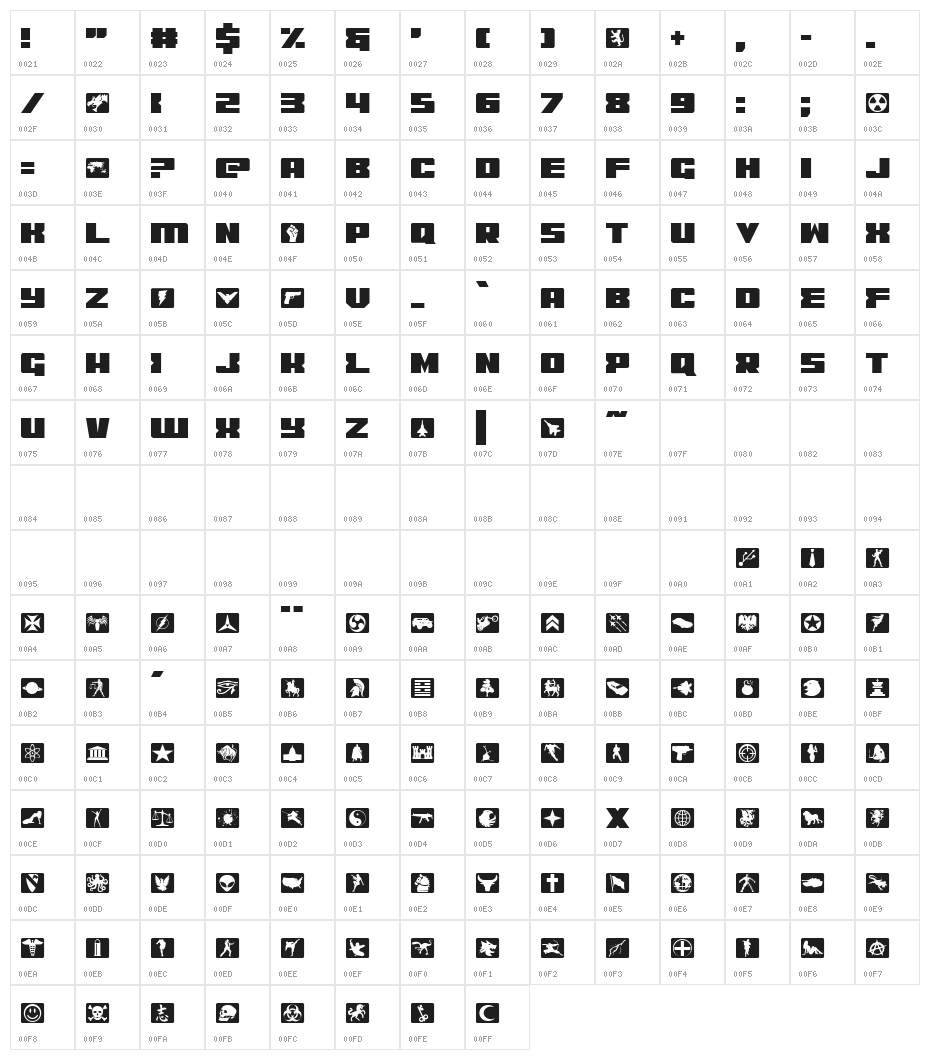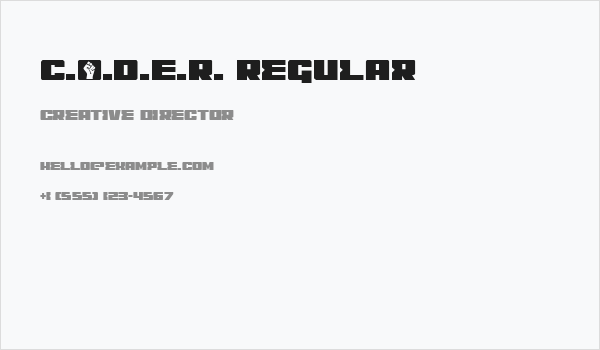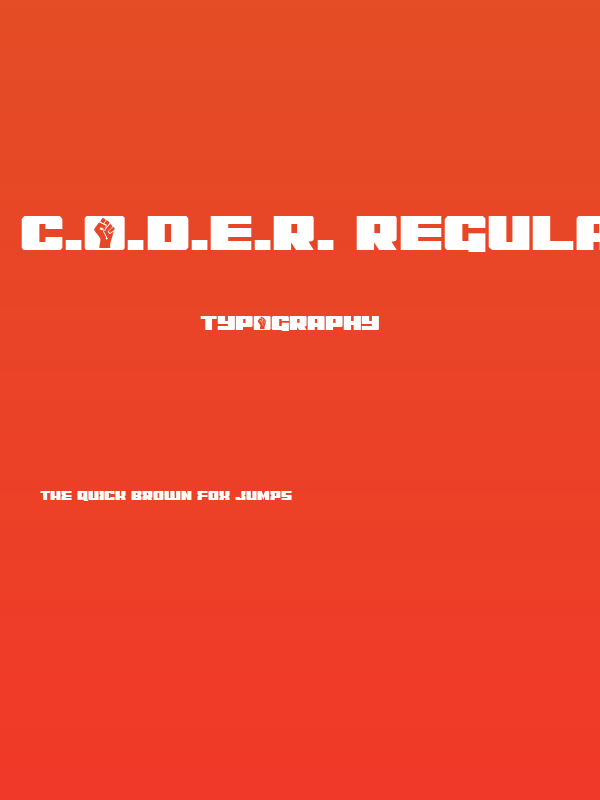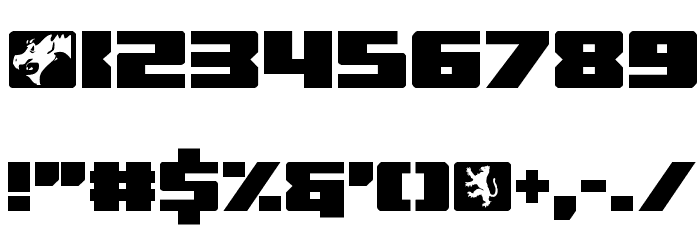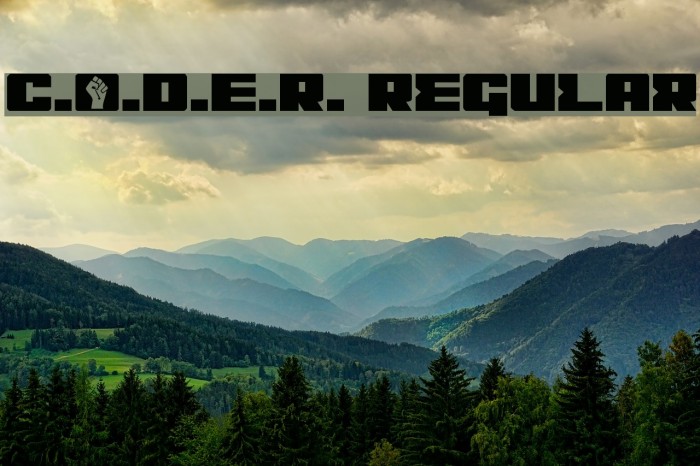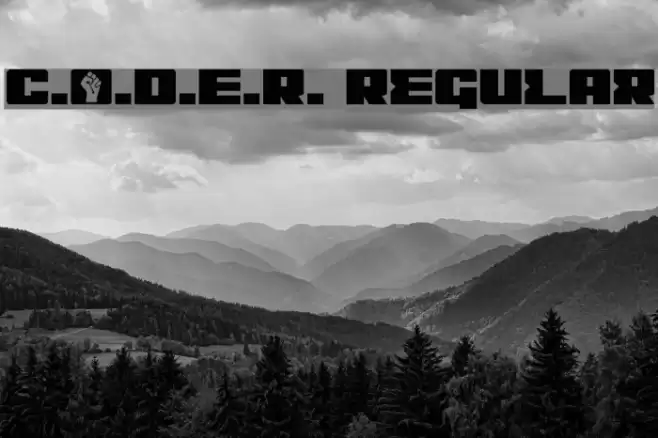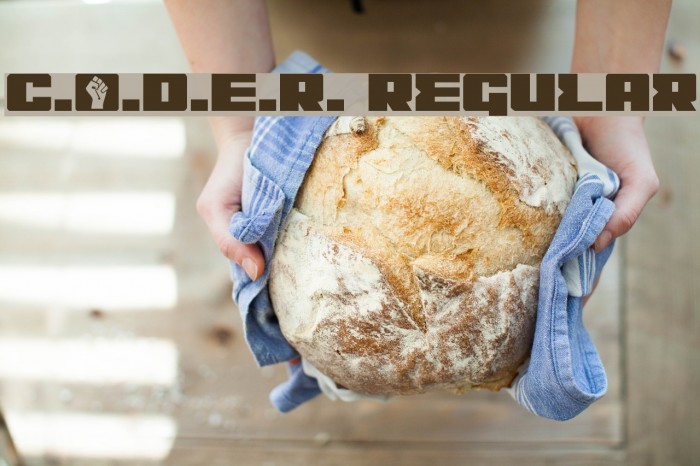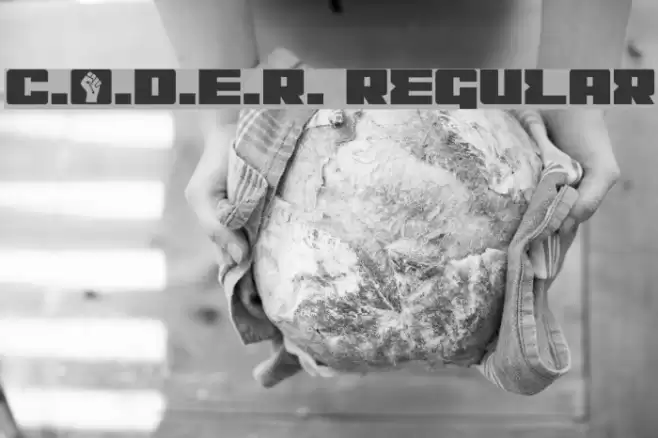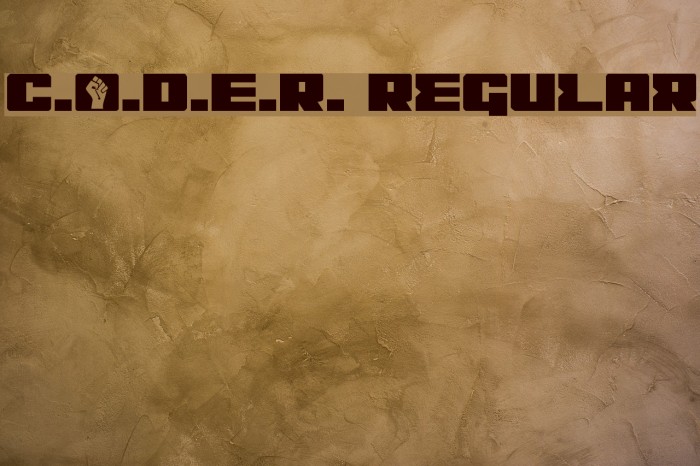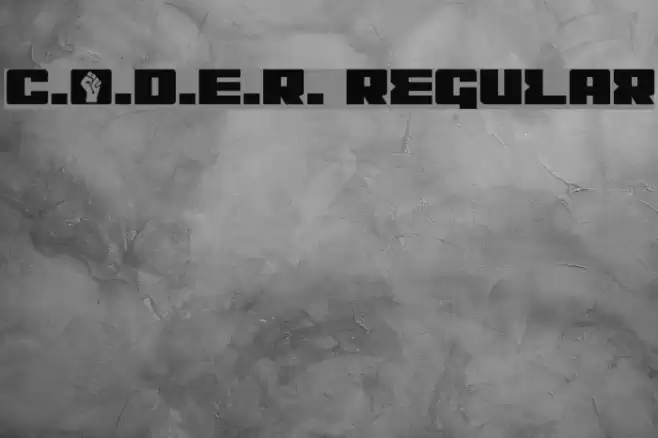
C.O.D.E.R. Regular Font
C.O.D.E.R. Regular Description
This font features a bold, geometric design with a strong, blocky appearance. The characters are uniformly thick, giving it a powerful and commanding presence. The uppercase letters are particularly striking, with sharp angles and a consistent height that makes them stand out. The numbers and special characters maintain the same bold style, ensuring a cohesive look across all elements. The font's design is reminiscent of digital or futuristic themes, making it suitable for projects that require a modern and impactful aesthetic.
| Proposed Projects | Ideal for video game titles, tech branding, posters, and digital media. |